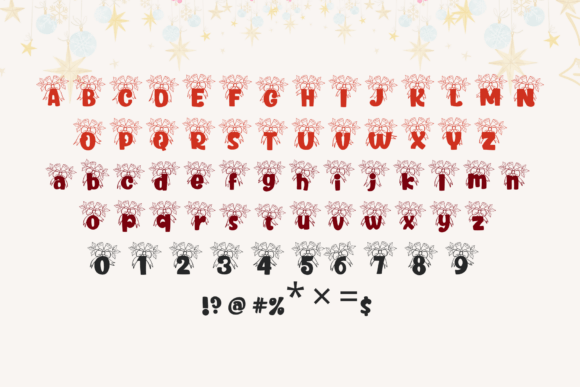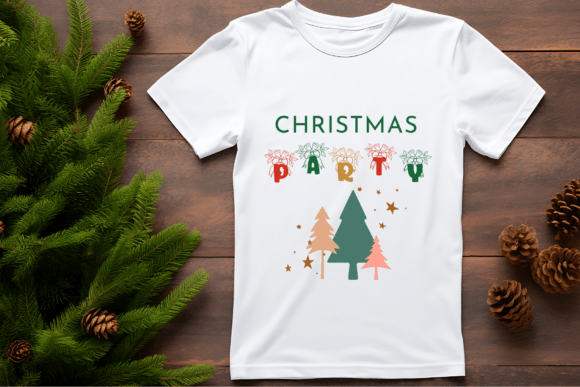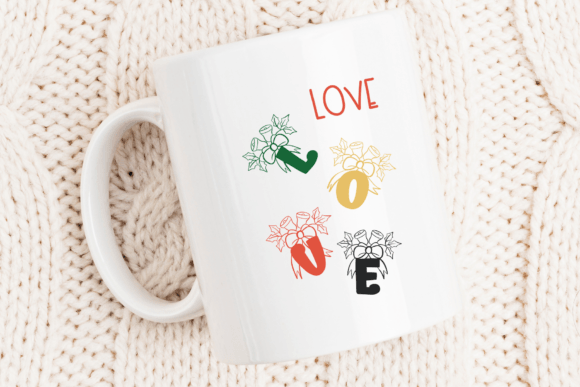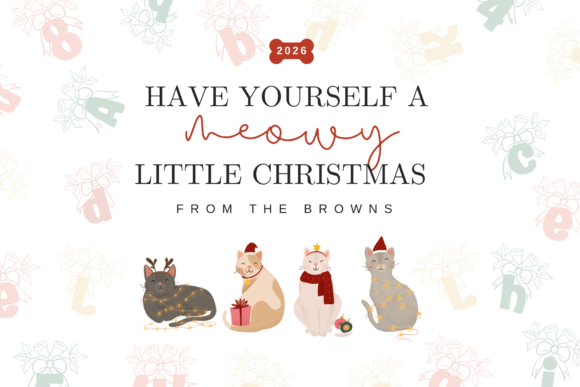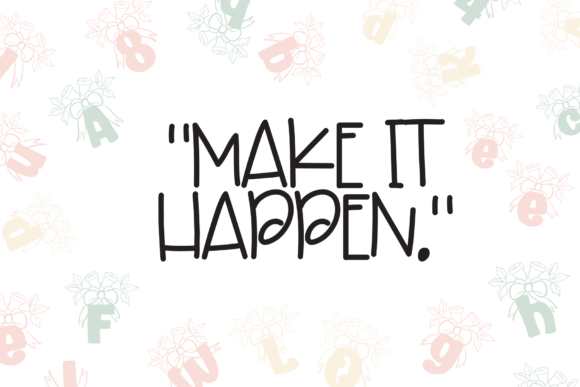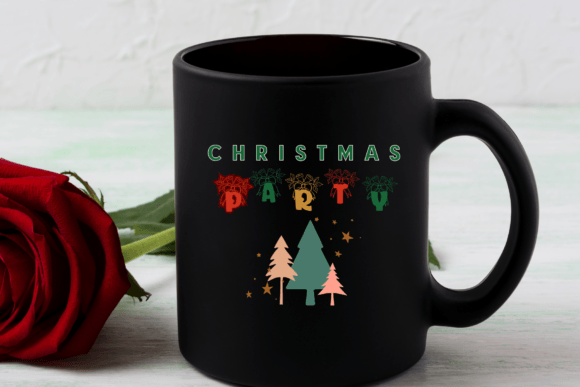
Bells Bow Christmas Font: A Festive Decorative Font for Your Holiday Designs
Are you looking for a unique and festive font to add a touch of holiday cheer to your designs? Look no further than the Bells Bow Christmas font! This decorative font features bells on festive bows, making it perfect for a variety of holiday projects. In this article, we’ll explore the features and uses of the Bells Bow Christmas font, and show you how to make the most of this beautiful font in your designs.
What is Bells Bow Christmas Font?
Bells Bow Christmas font is a decorative font that combines the elegance of bells with the festivity of bows. The font features intricate designs of bells tied with ribbons and bows, creating a beautiful and eye-catching effect. The font is perfect for designers and crafters who want to add a touch of holiday magic to their projects.
Uses of Bells Bow Christmas Font
The Bells Bow Christmas font is a versatile font that can be used for a variety of projects, including:
- Note-taking and journaling: Add a touch of holiday cheer to your notes and journal entries with the Bells Bow Christmas font.
- Greeting cards: Create beautiful and unique greeting cards for friends and family with this festive font.
- Banners and signs: Use the Bells Bow Christmas font to create eye-catching banners and signs for your holiday events.
- Social media posts: Add a touch of holiday magic to your social media posts with this festive font.
- Mugs and water bottles: Create custom mugs and water bottles with the Bells Bow Christmas font for a unique and thoughtful gift.
- T-shirts and hoodies: Use the Bells Bow Christmas font to create custom t-shirts and hoodies for the holiday season.
- Stationery and gift tags: Add a touch of elegance to your stationery and gift tags with this beautiful font.
Benefits of Using Bells Bow Christmas Font
The Bells Bow Christmas font offers a range of benefits for designers and crafters, including:
- Unique and festive design: The Bells Bow Christmas font features a unique and festive design that will add a touch of holiday cheer to your projects.
- Versatile: The Bells Bow Christmas font can be used for a variety of projects, from note-taking to creating custom gifts.
- High-quality design: The font features a high-quality design that is sure to impress.
Tips for Using Bells Bow Christmas Font
Here are some tips for using the Bells Bow Christmas font in your designs:
- Use it sparingly: Use the Bells Bow Christmas font sparingly to add a touch of holiday magic to your designs.
- Pair it with other fonts: Pair the Bells Bow Christmas font with other fonts to create a unique and eye-catching effect.
- Experiment with colors: Experiment with different colors to find the perfect combination for your design.
- Use it for headings and titles: Use the Bells Bow Christmas font for headings and titles to add a touch of elegance to your designs.
The Bells Bow Christmas font is a beautiful and festive font that is perfect for designers and crafters who want to add a touch of holiday cheer to their projects. With its unique and elegant design, this font is sure to impress. Whether you’re creating greeting cards, banners, or custom gifts, the Bells Bow Christmas font is a great choice. So why not give it a try and see what amazing designs you can create?